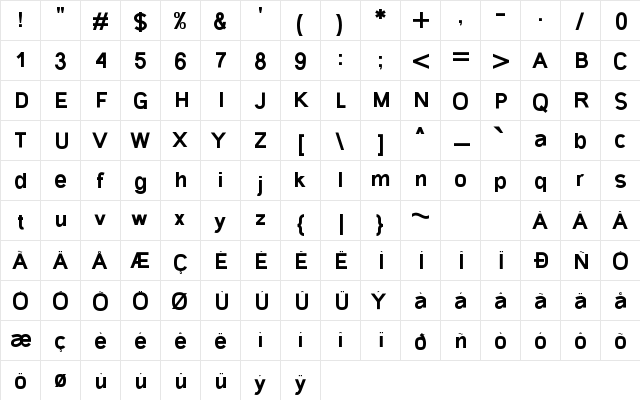
Gecade Bold
| Designer | AmruID |
Design Context for Gecade Typeface
Gecade is a composed and adaptable typeface that performs quietly and consistently across a wide range of design contexts. The heavy weight commands attention and anchors typographic hierarchies.